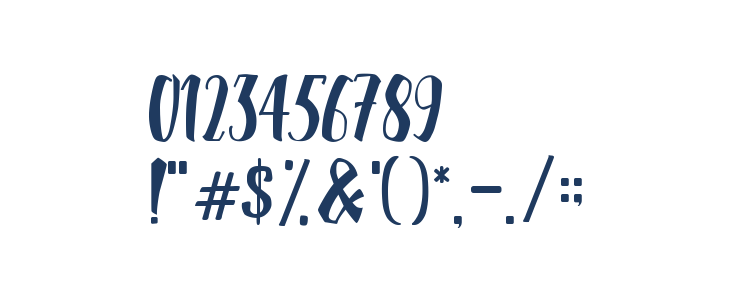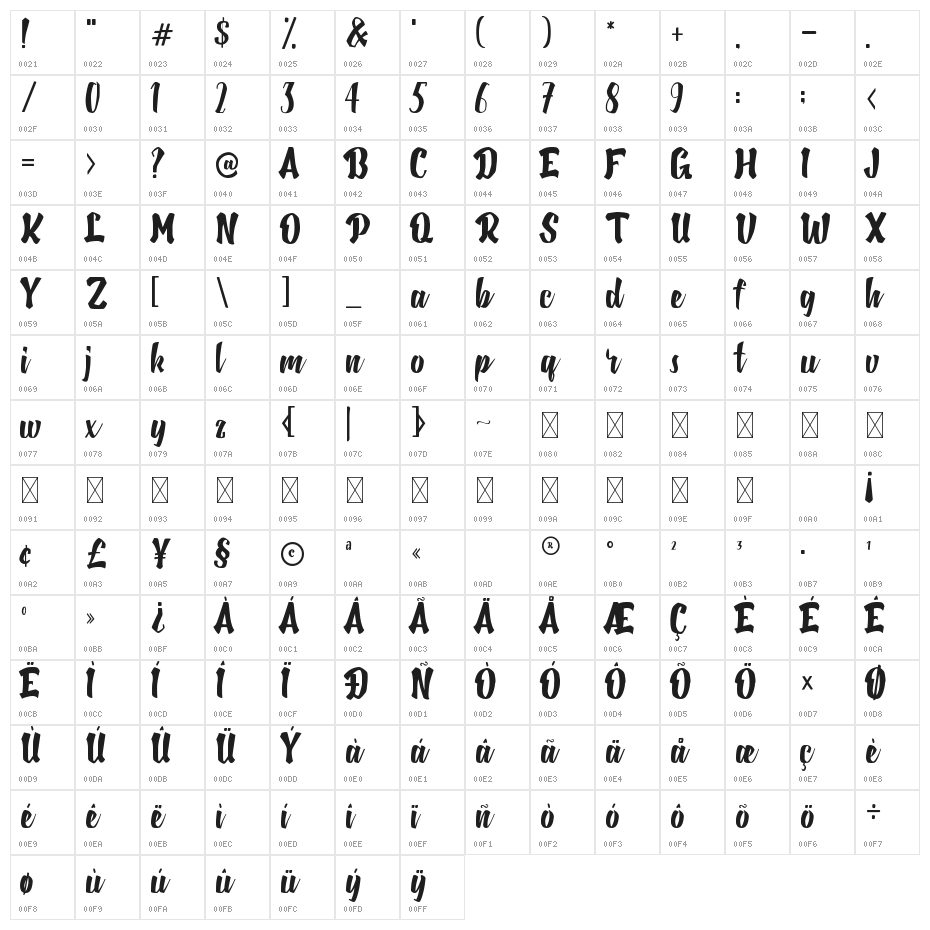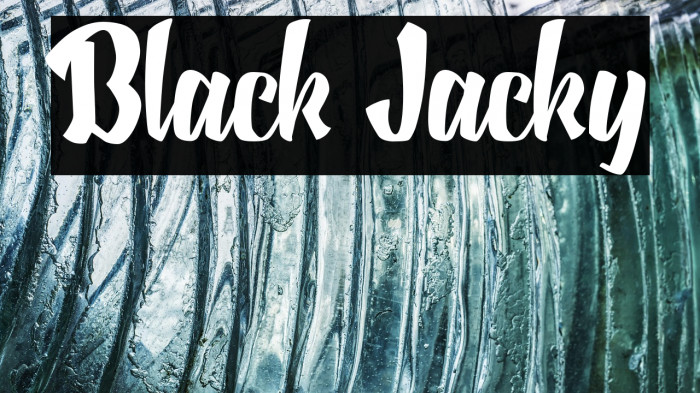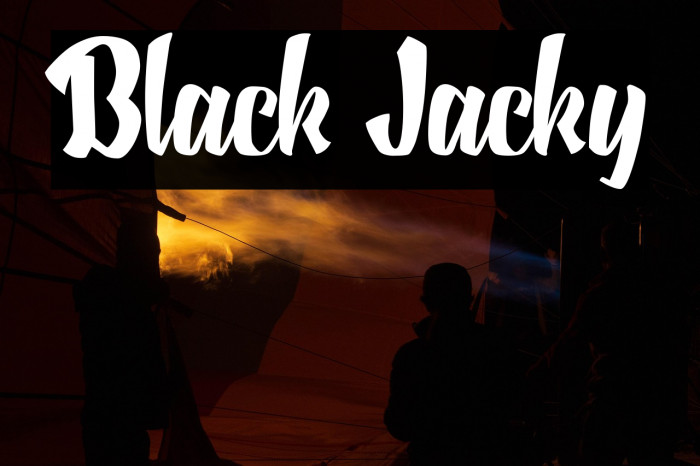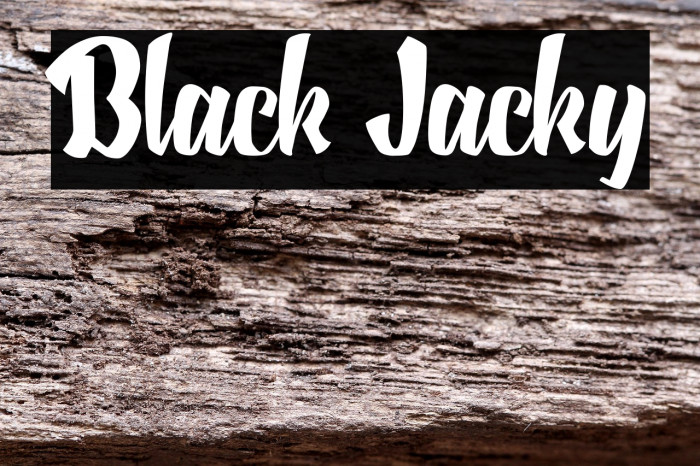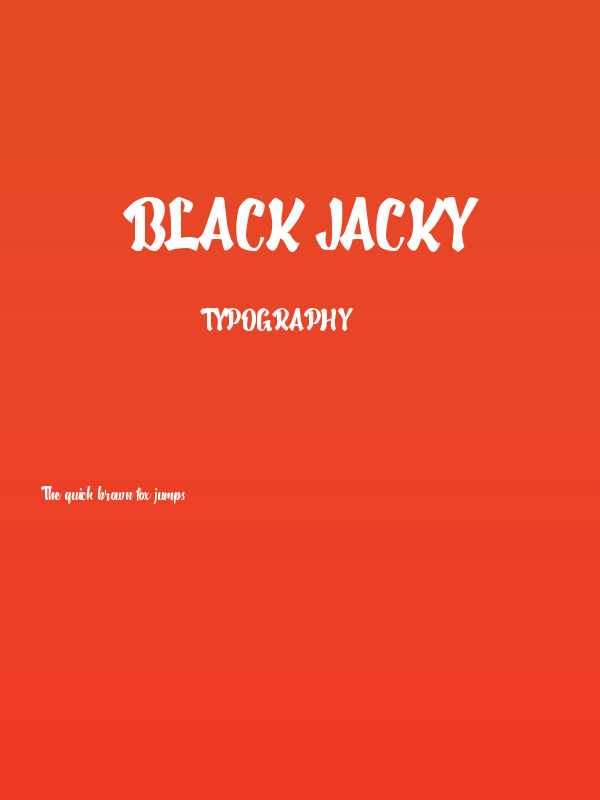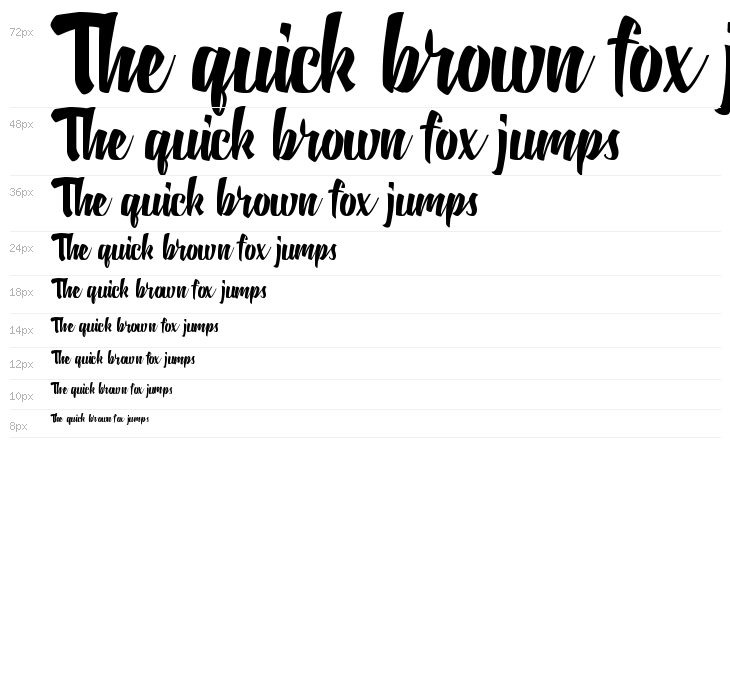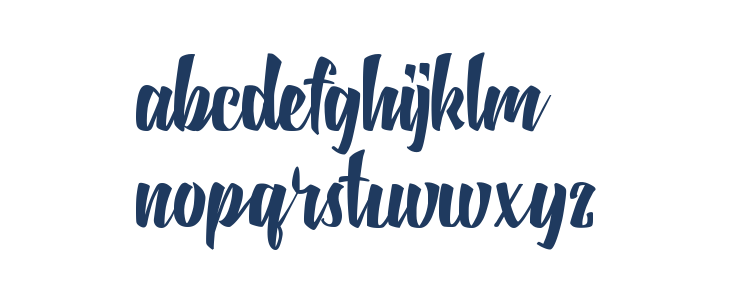
Black Jacky Font
Black Jacky Description
This font features a bold and dynamic script style with a strong presence. The uppercase letters are characterized by thick, sweeping strokes and a slightly condensed form, giving them a powerful and assertive look. The lowercase letters maintain a fluid and connected appearance, enhancing the script's overall elegance and flow. The numerals are similarly bold, with a consistent stroke weight that matches the letters. Special characters are designed to complement the font's energetic style, making it suitable for attention-grabbing designs. The font's high contrast between thick and thin strokes adds to its dramatic and impactful aesthetic.